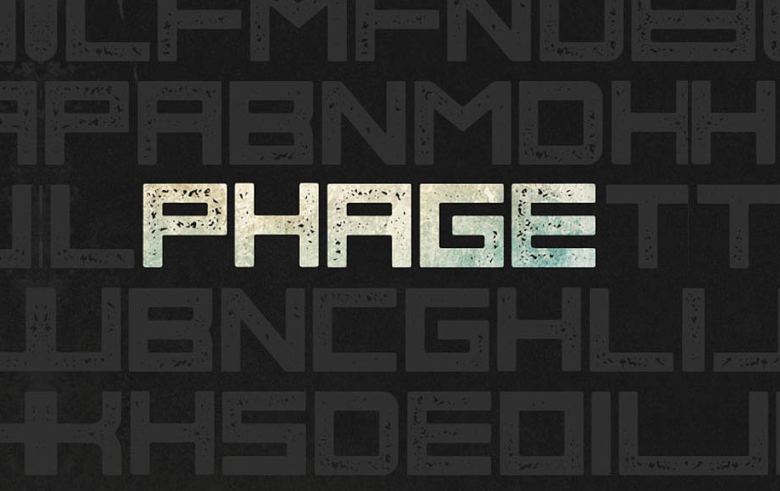
Phage Font
Phage designed and shared by Mehmet Reha Tugcu. Phage is a free font family in 2 styles. It’s based on a square,blocky layout. Inspired by the geometric symmetry. Phages suitable for electronic text, you can use it in the billboards, logo …